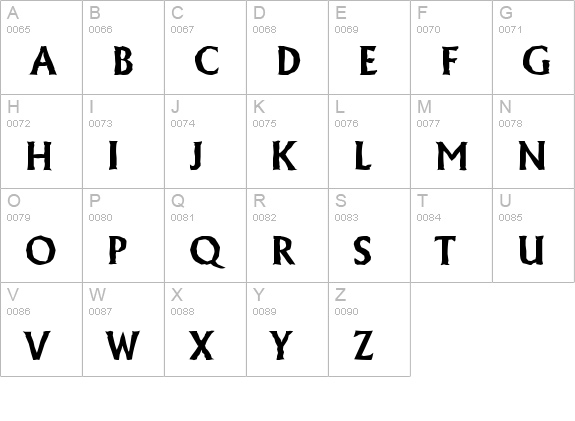
AdelonAntique-Bold is a strong, high-contrast variant in the AdelonAntique typeface family \xE2\x80\x94 well suited to headlines, attention-grabbing titles, and strong calls-to-action.
AdelonAntique-Bold is a timeless and elegant font that exudes sophistication and class. Its bold and distinctive letterforms make a statement while maintaining a sense of classic charm. This font is perfect for creating eye-catching headlines, logos, and invitations that demand attention. And the best part? AdelonAntique-Bold is available for free download at FontsMarket.com. This means you can elevate your design projects without breaking the bank. Don't miss out on the opportunity to add this stunning typeface to your collection today and take your designs to the next level.